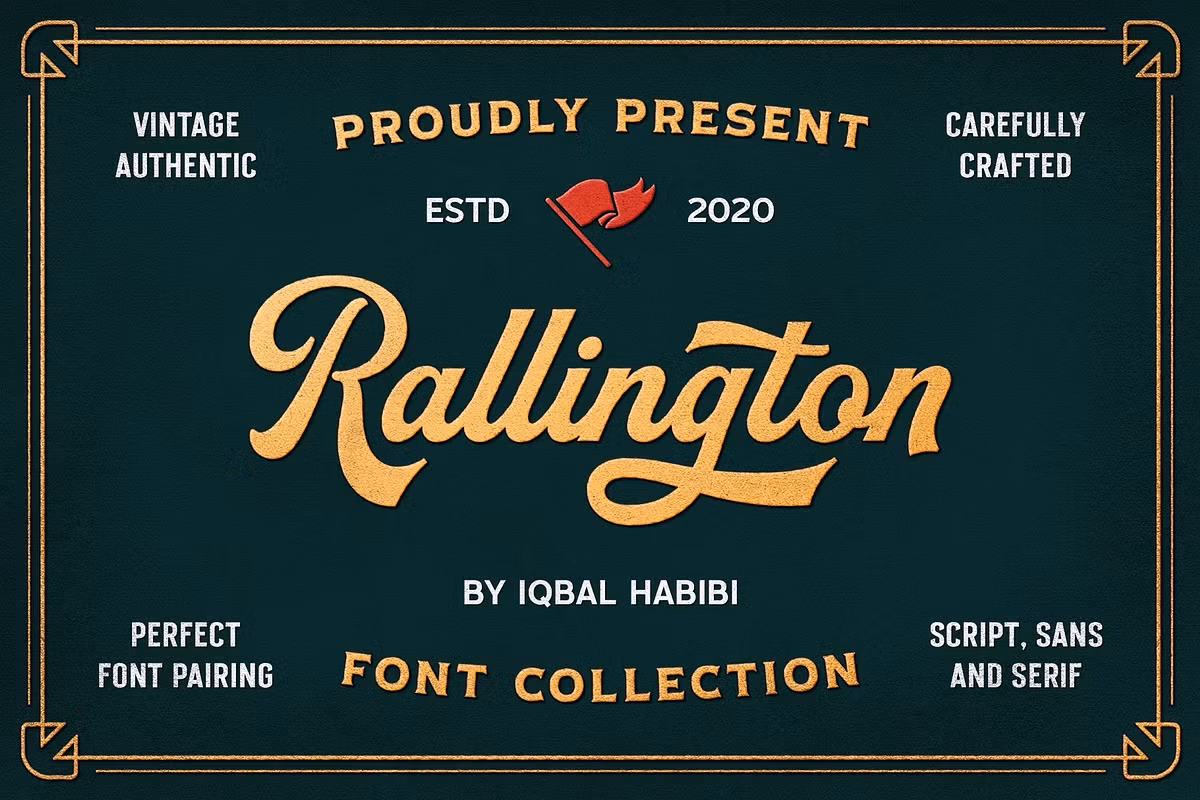
Rallington - Font Collection Free Download is a diverse and elegant collection of fonts, offering everything from sophisticated scripts to clean sans-serifs. Perfect for a variety of creative projects such as branding, logos, invitations, websites, and more, Rallington provides versatility and style. Whether you need a refined font for a high-end brand or a playful script for a personal project, this collection has a font for every occasion.